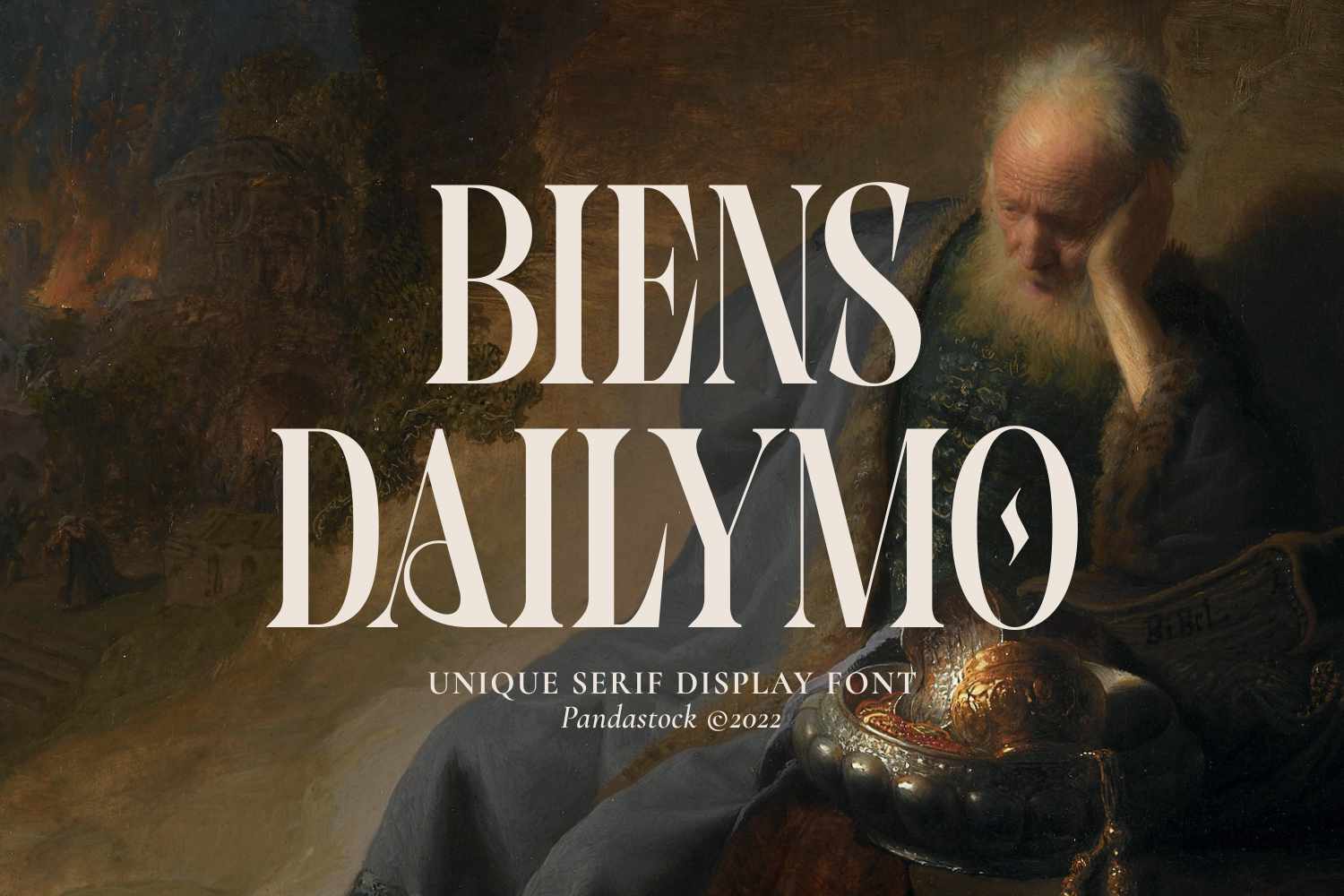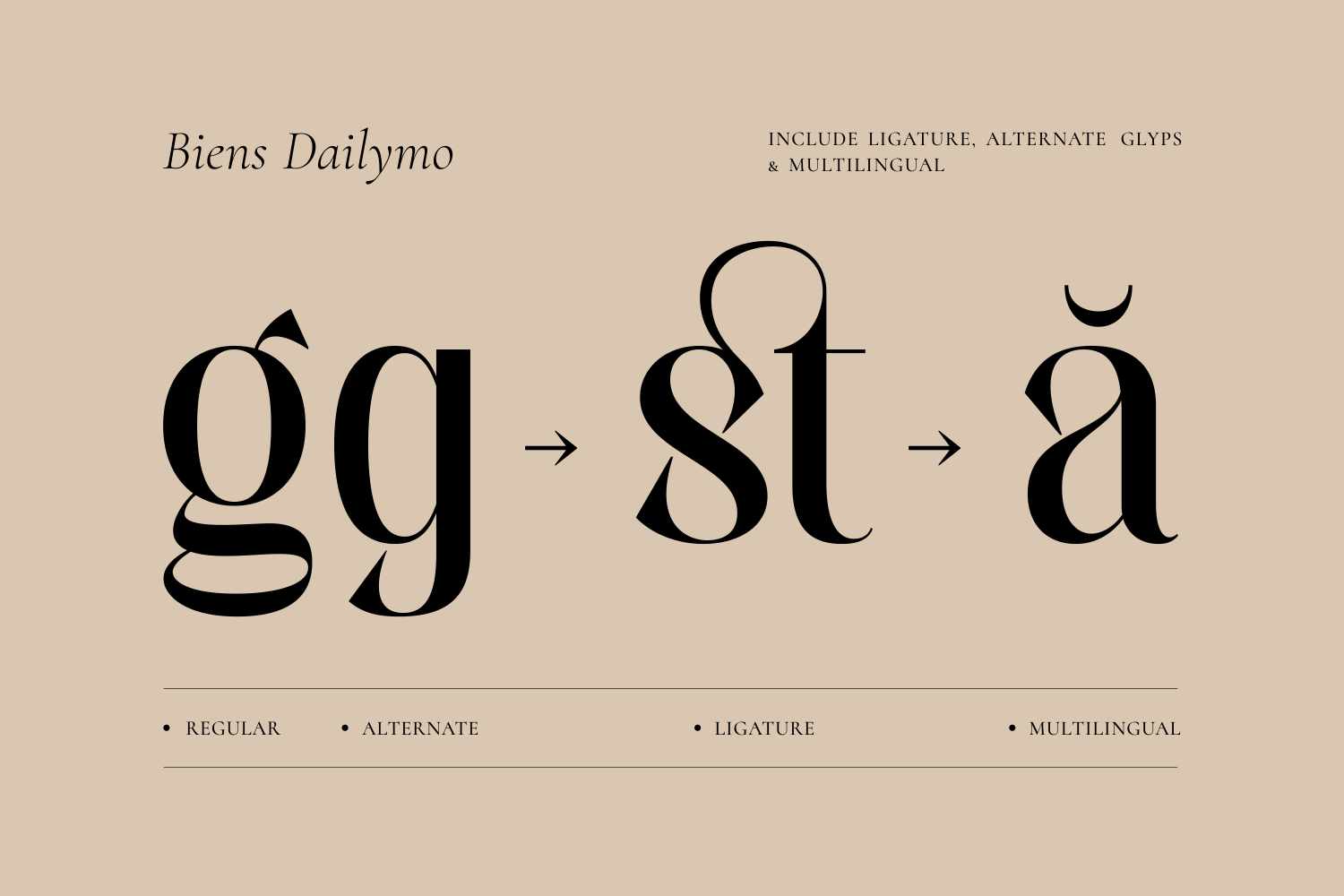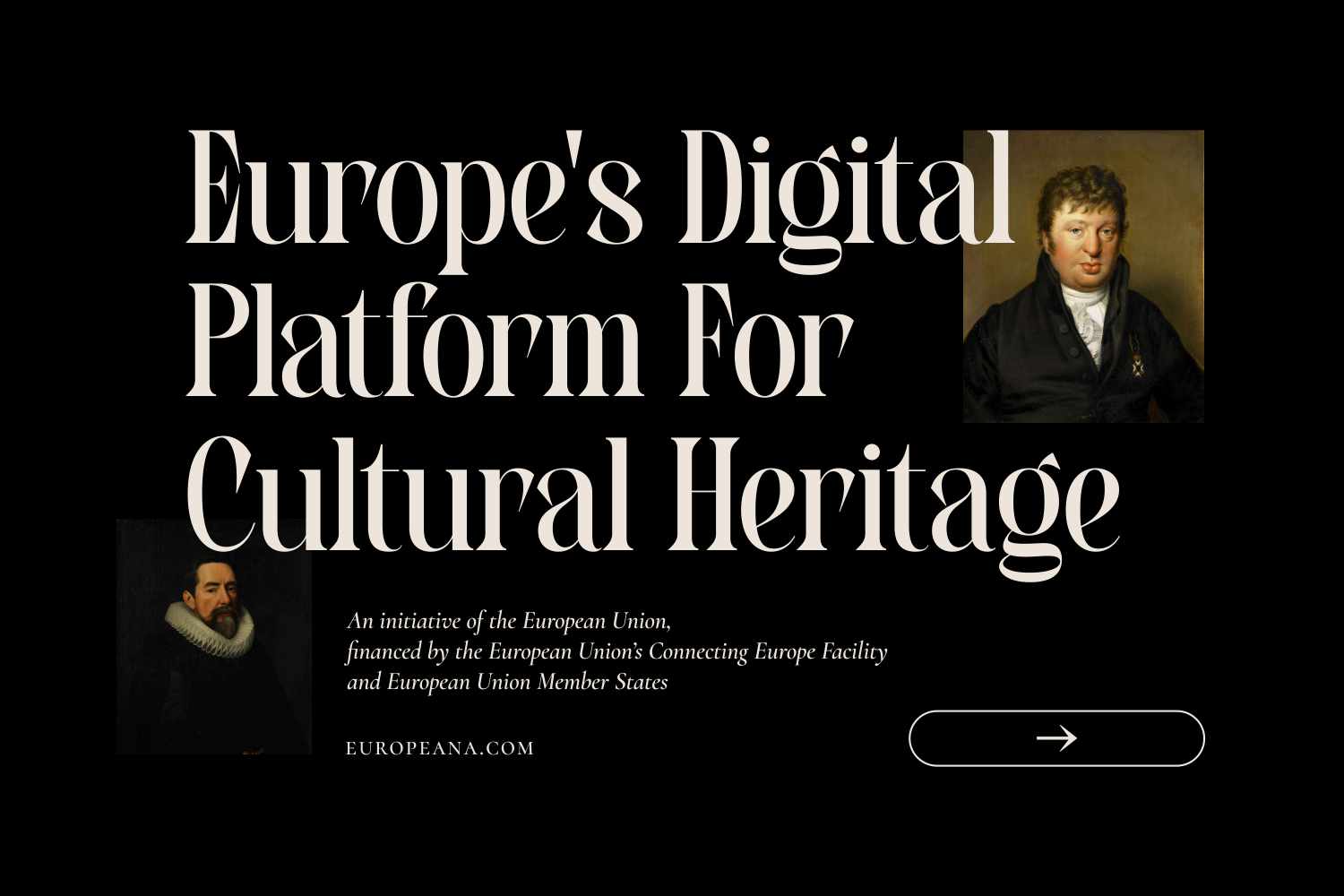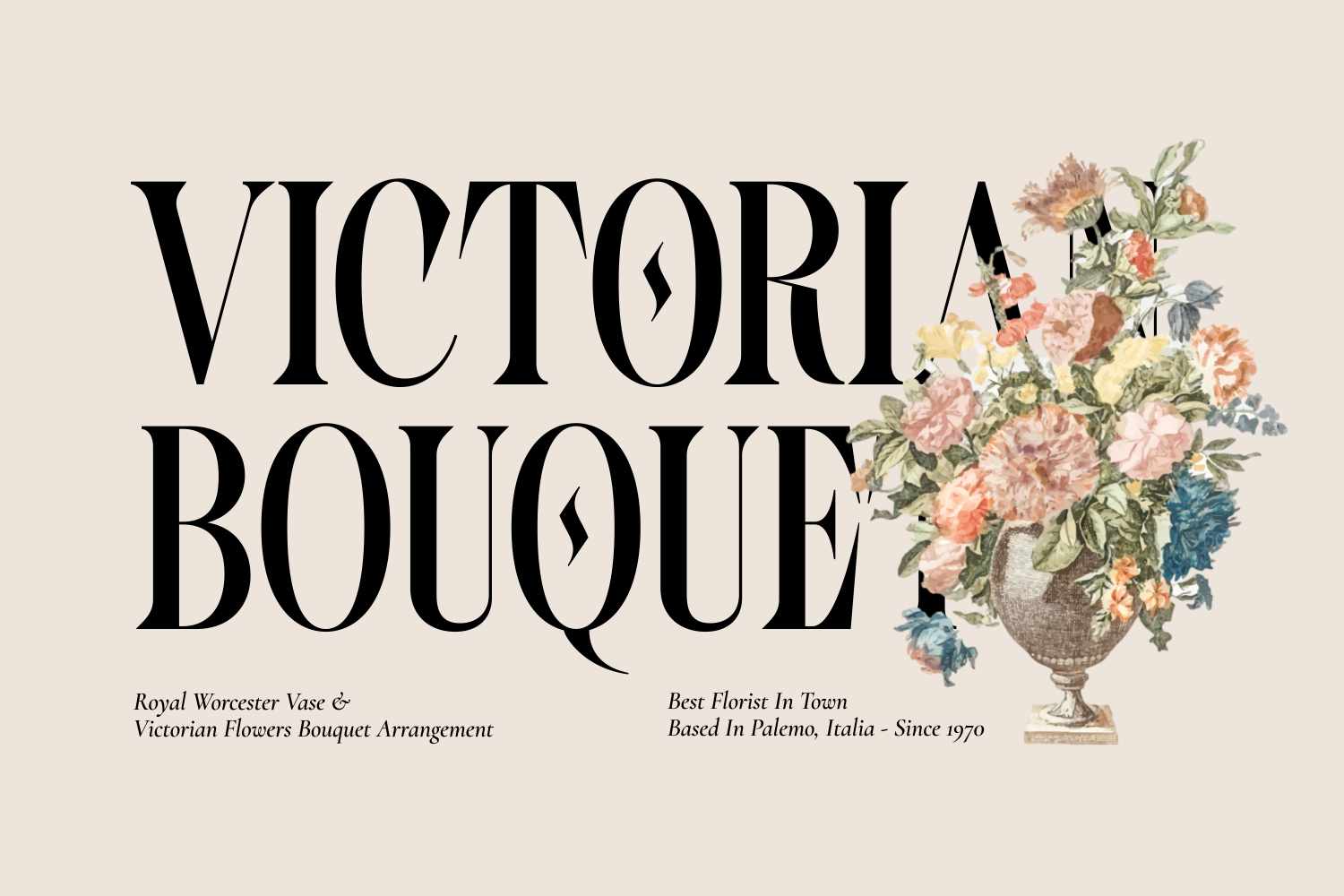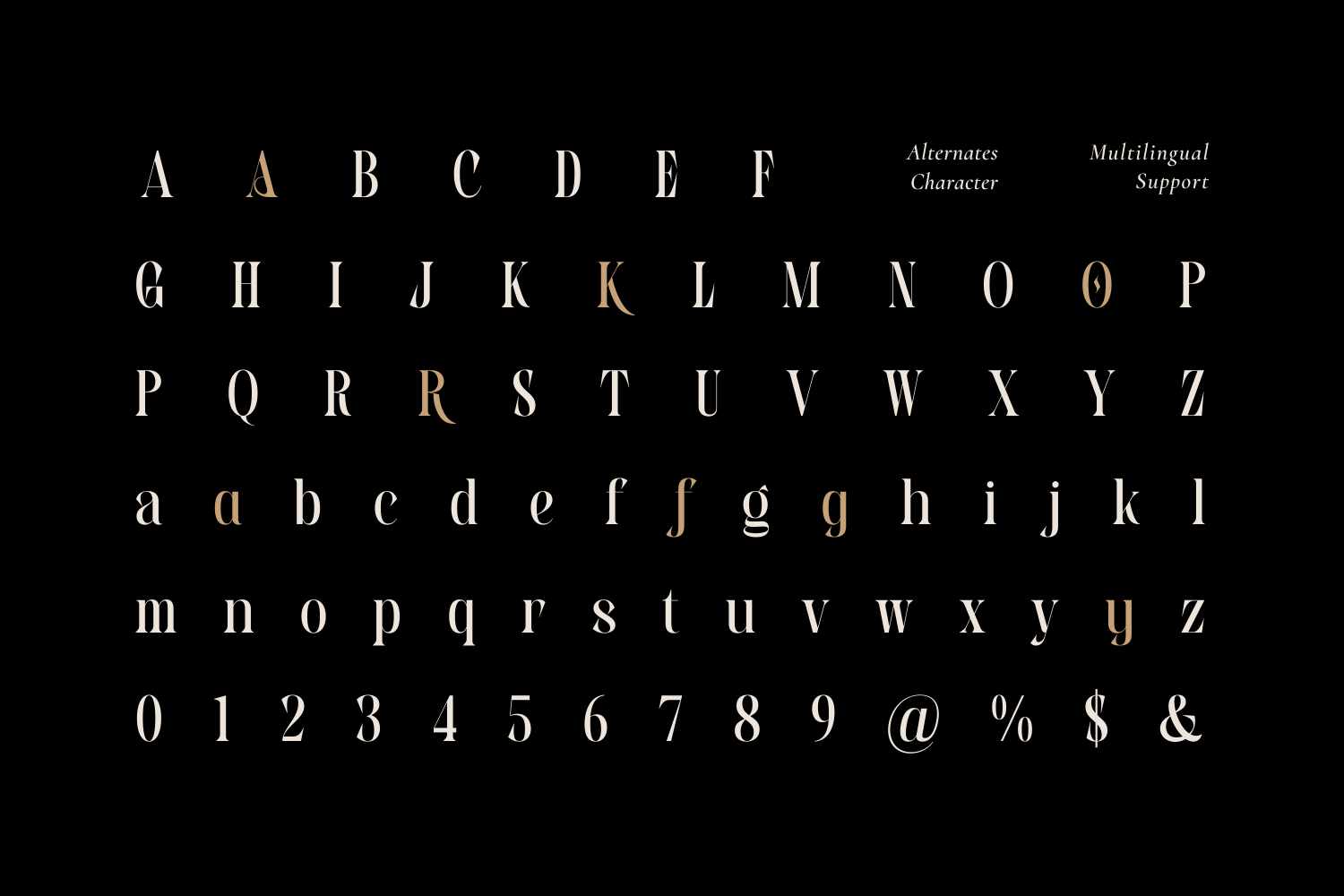
Biens Dailymo is a sophisticated serif display font that blends classic elegance with a modern artistic twist. Its tall letterforms, sharp contrasts, and refined alternates make it perfect for luxurious branding, editorials, and cultural projects that demand a timeless yet contemporary feel. This font evokes a sense of heritage and prestige, making every composition stand out with bold sophistication.
Equipped with ligatures, alternate glyphs, and multilingual support, Biens Dailymo is designed for versatility across various design needs. From logos and packaging to posters and magazine headlines, this font brings an iconic look that elevates visual identity and leaves a lasting impression.
Biens Dailymo